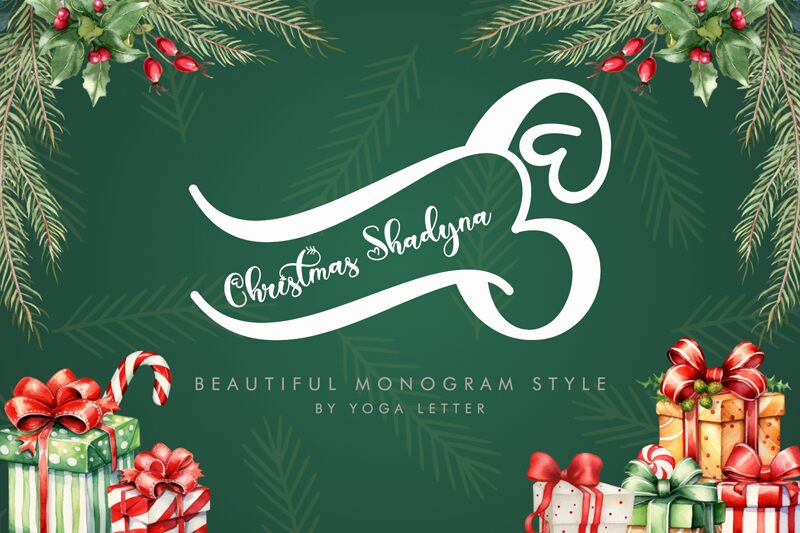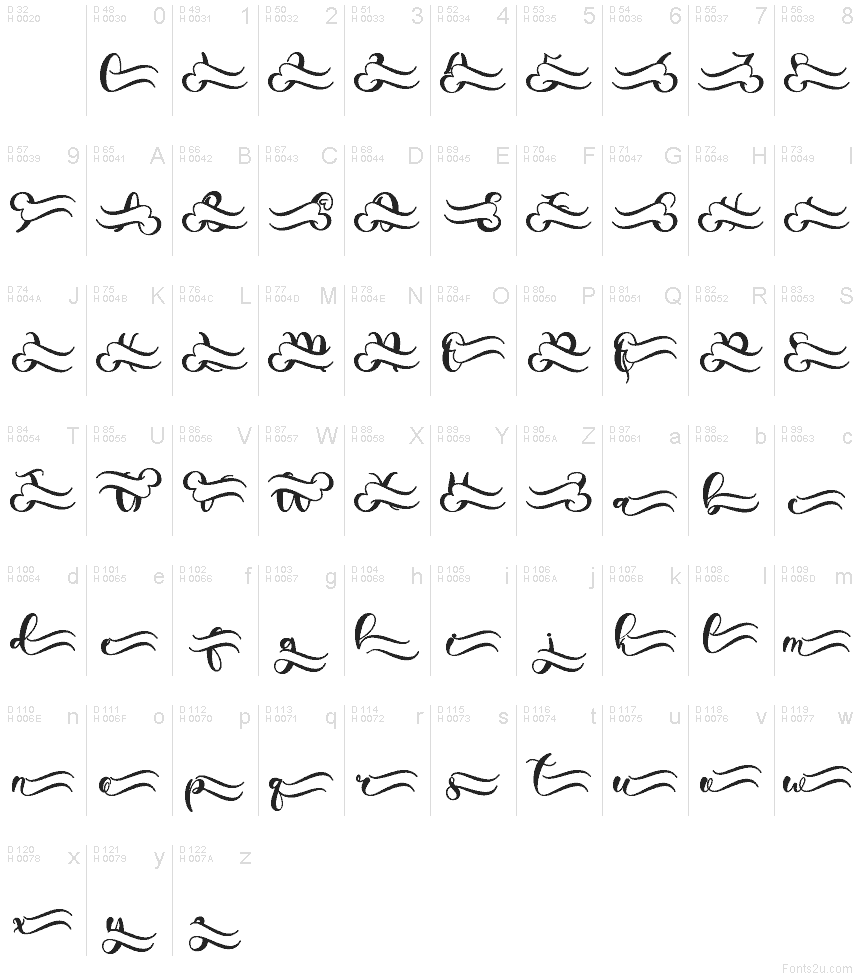
Christmas Shadyna Monogram
Christmas Shadyna Monogram font by Yoga Letter is a free decorative Christmas monogram typeface with a swirling, ribbon-like script that feels hand-drawn and festive. Each letter curls and loops like icing on a sugar cookie, with long, wavy strokes that stretch across the line and tie words together. The overall effect is whimsical but still legible, giving holiday designs an elegant, storybook charm rather than a loud, novelty look.
Using Christmas Shadyna Monogram, you can create personalized ornaments, gift tags, greeting cards, holiday logos, mug designs, and cozy seasonal social graphics that feel truly custom. This free font shines when you set it large, letting the flourishes breathe, and pair it with a clean sans serif for dates or small supporting text.